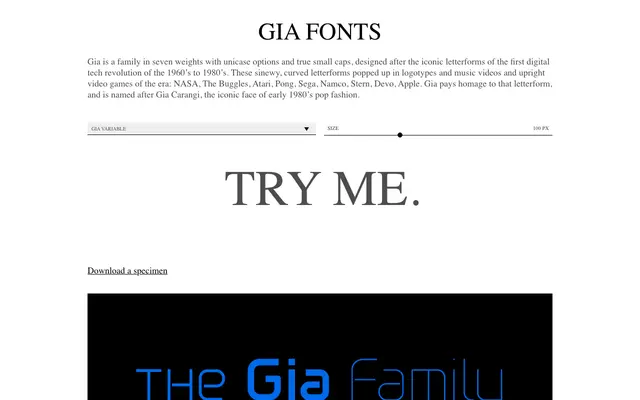
A seven-weight display family with unicase options and small caps, drawn from the curved letterforms of 1960s–1980s tech and arcade culture.
Named after model Gia Carangi, this family captures the sinewy, rounded letterforms that defined early digital tech branding from NASA to Atari and Sega. Seven weights run from Ultralite to Black, with a variable font available, and the family includes unicase options and true small caps throughout. Well suited to titles, logotypes and screen work where a retro-futurist tone is needed.
Gia draws on the sinewy, curved unicase letterforms of 1960s–1980s digital tech branding and arcade culture, placing it firmly in the display category with a geometric, retro-futurist character.